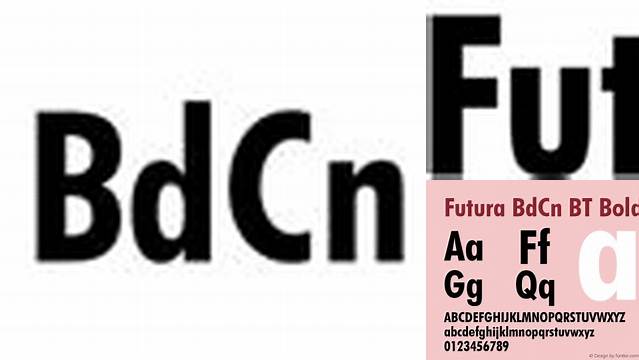
1. Unveiling the Timeless Appeal of Futura BDCN BT Font
Futura BDCN BT, what a name, right? But more than just a name, it's a statement. This font is known for its clean lines, geometric shapes, and overall modern aesthetic. Its popularity stems from its versatility; it looks fantastic in various applications, from headlines to body text. The Futura BDCN BT font offers a sense of sophistication and elegance that few other typefaces can match. Think about the classic brands that have embraced Futura β you'll quickly understand the level of prestige associated with it. This font isn't just about aesthetics; it's about making a statement. The sharp, precise forms convey clarity and a sense of order, making it a go-to choice for designers worldwide. And the best part? It's a typeface that stands the test of time. Even now, decades after its creation, Futura BDCN BT remains a favourite, consistently finding its place in contemporary design. So, it's more than just a font; it's a piece of design history, and I'm really stoked to share more about it.
1.1. The History and Evolution of Futura
Alright, let's step back in time for a second. The Futura font, created by Paul Renner, first hit the scene in 1927. Renner's vision was all about a typeface that looked modern, efficient, and based on geometric shapes β circles, triangles, and squares, baby! He wanted something clean and easy to read, and man, did he succeed. Over the years, Futura has evolved, with variations and adaptations popping up. Each version aimed to improve its readability and adapt it for different uses. However, the core principles of Renner's original design remain. These geometric forms gave the font a unique edge that helped it stand out. This makes the font a symbol of design excellence. And it makes sense, because Futura has influenced almost every design area, from print to digital. So, by downloading the Futura BDCN BT font free, you're not just getting a font; you're getting a piece of design history that's been refined over decades. The way Futura has changed over time tells a story about how design has evolved. It is a testament to how design is constantly changing and adapting to meet the demands of a changing world. Understanding this background helps you to appreciate its significance and how it fits into the design world.
1.2. Why Designers Love Futura BDCN BT
Okay, let's be real: why do designers keep coming back to Futura BDCN BT? Well, the reasons are many! First off, it's incredibly versatile. You can use it for almost anything. Whether it's a fancy logo, a sleek website headline, or a printed brochure, Futura steps up. The clean lines and geometric shapes give it that modern edge that looks sharp and professional. It's also got amazing readability, making it a great option for both large and small text. That consistent visual experience is so important. Another reason designers dig it? It's a classic. Its enduring popularity is a testament to its design excellence. You can trust it will look great, no matter the project. It is a safe bet. Brands like Louis Vuitton and Domino's have embraced Futura, so you know you're in good company. It has a timeless quality. It's a perfect blend of sophistication and readability. So, when you're looking for a font that'll make a statement and look fantastic in any situation, Futura BDCN BT is the way to go. It's not just about aesthetics; it's about making a statement and communicating your message clearly.